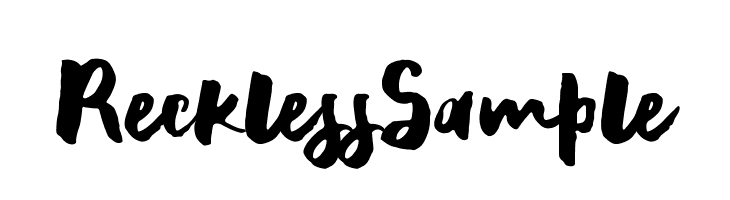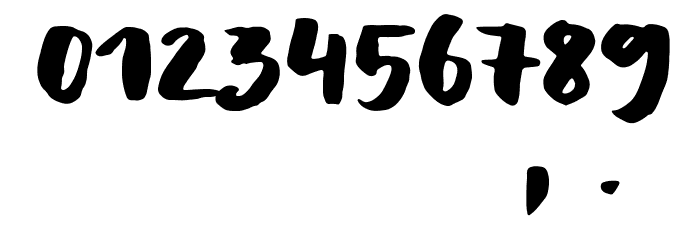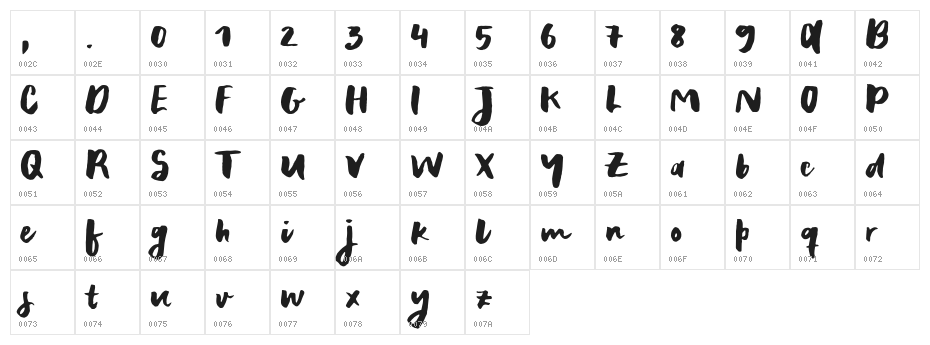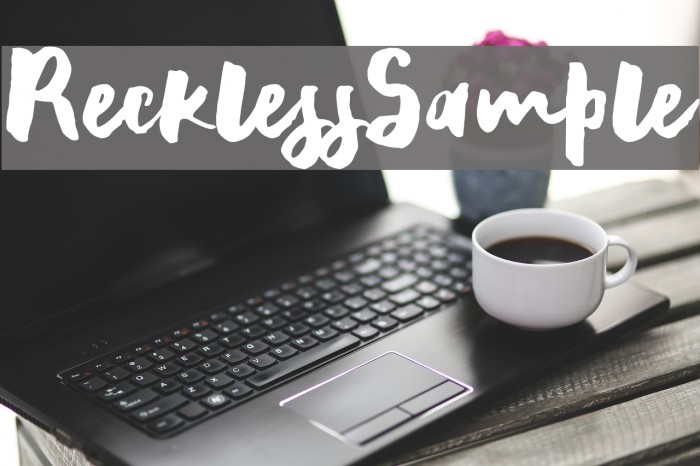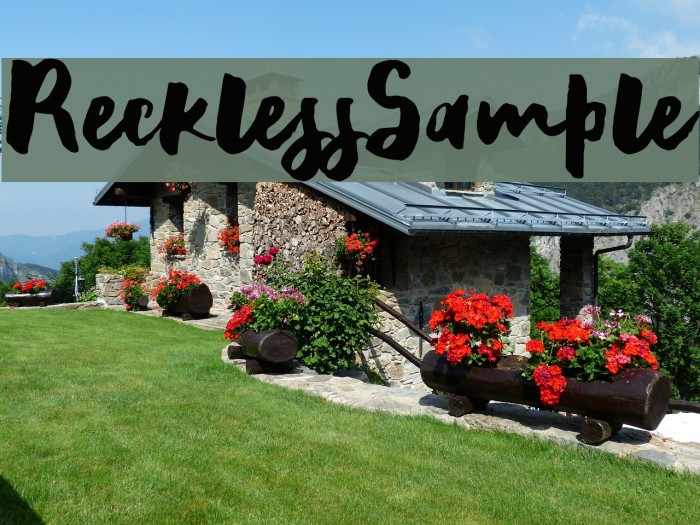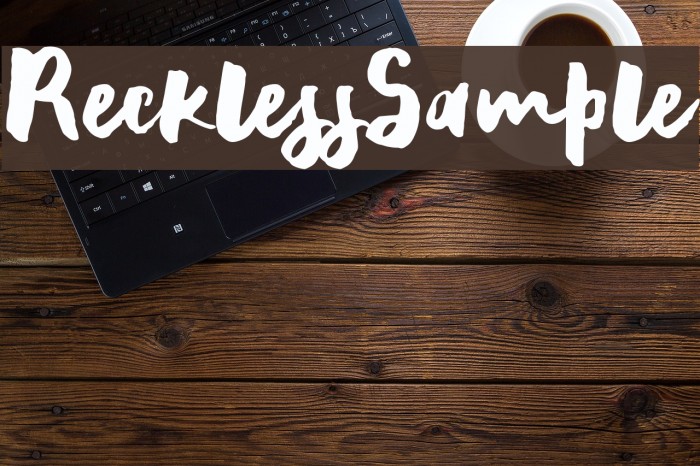
RecklessSample Font
RecklessSample Description
This font features a bold and expressive handwritten style, characterized by its thick, brush-like strokes and dynamic flow. The letters have a playful and energetic appearance, with varying stroke widths that add a sense of movement and spontaneity. The uppercase letters are bold and commanding, while the lowercase letters maintain a consistent rhythm, enhancing readability. The numbers and special characters follow the same lively style, making them stand out. This font's unique personality makes it suitable for creative and artistic projects.
| Proposed Projects | Ideal for branding, posters, invitations, and artistic designs that require a personal touch. |